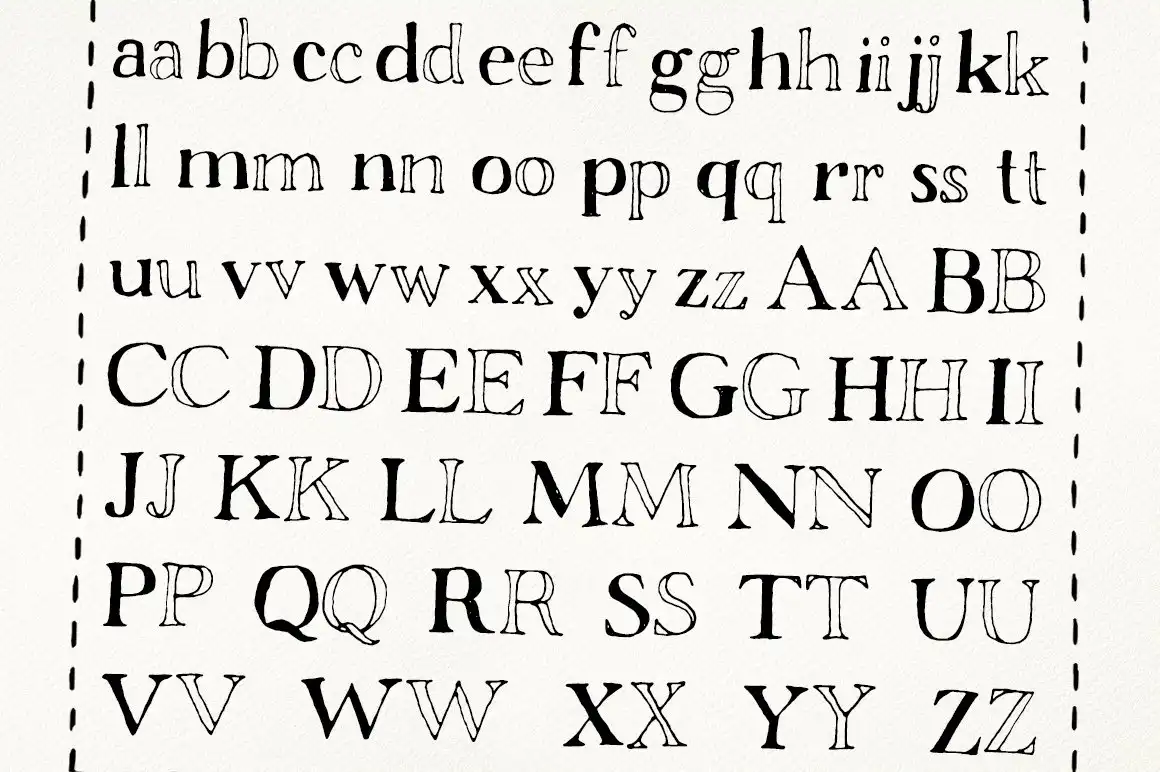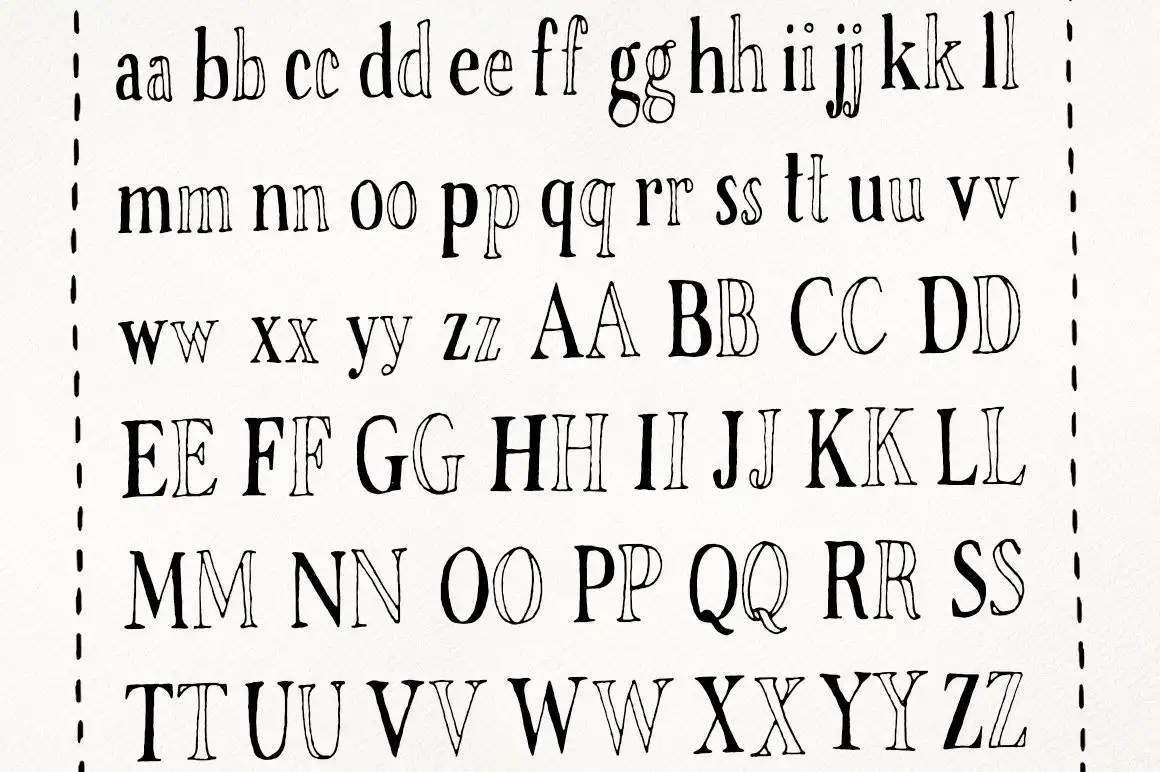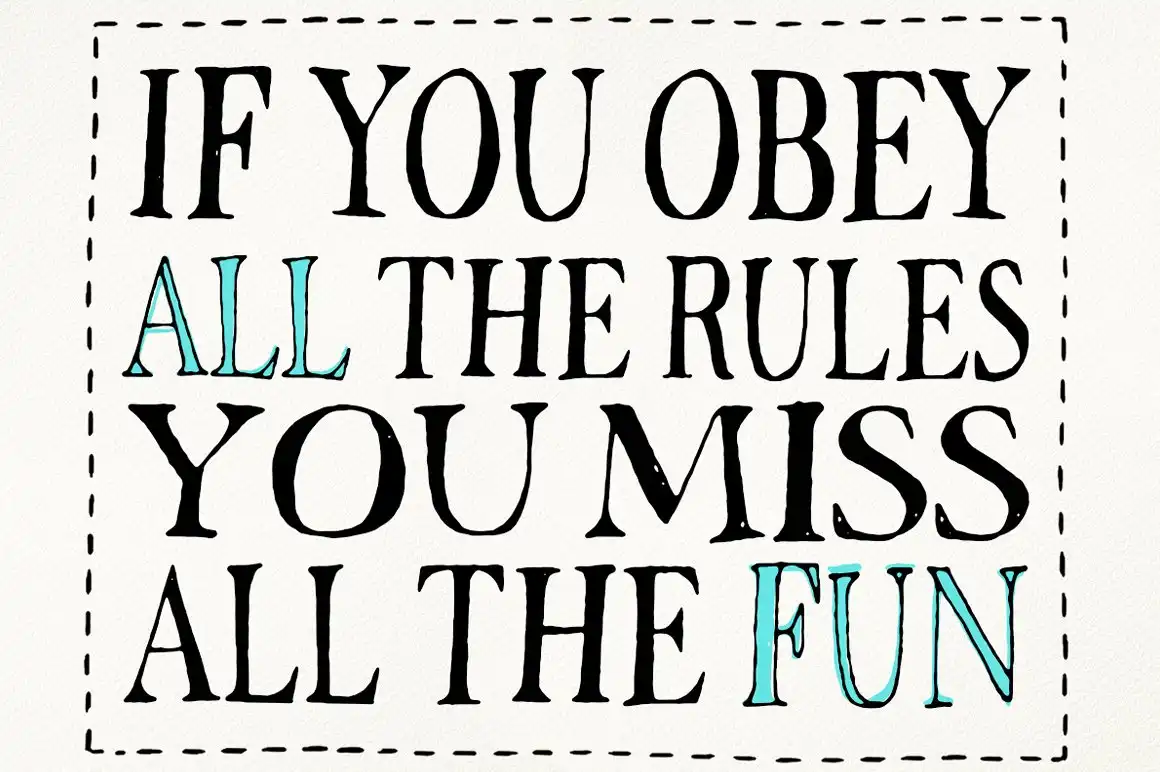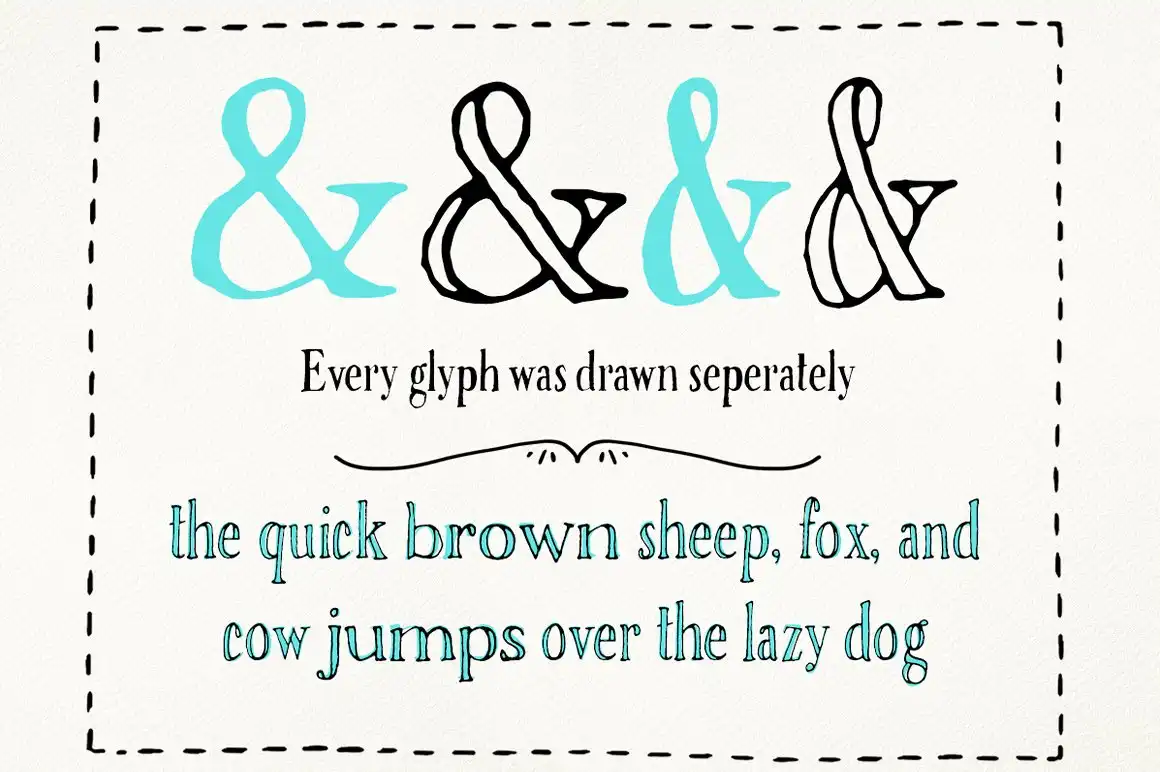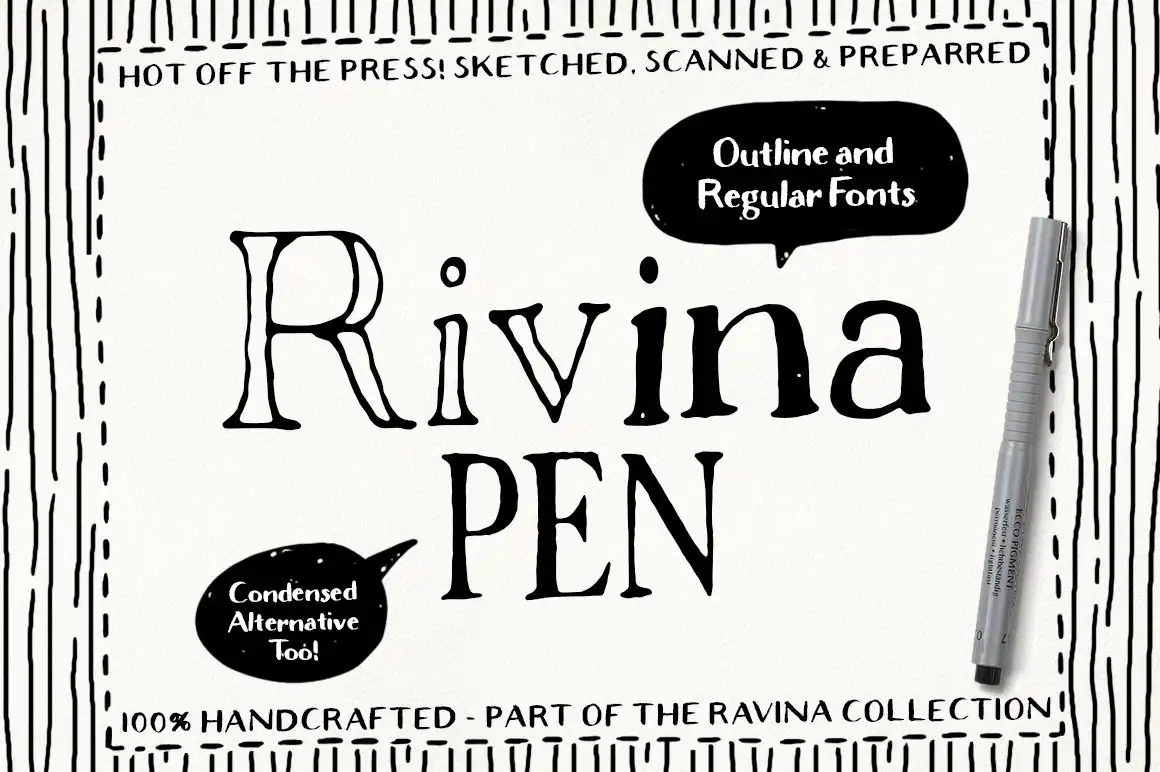
Welcome to the Rivina Pen Font Family!
The Rivina Pen Font Family is a playful collection of hand-drawn serifs that embodies the spirit of the DIY movement. In a world filled with digital uniformity, these fonts stand out with their unique charm and character. Whether you’re designing invitations, branding materials, or social media graphics, this font family will bring your creative visions to life! 🎨
- Hand-Drawn Style: Adds a personal touch to your designs, making them feel warm and inviting.
- Multiple Font Variations: Enjoy both outline and solid versions for versatile design options.
- Easy to Layer: While perfect alignment may vary, the creative possibilities are endless!
This font family is ideal for:
- Graphic designers looking for unique typefaces
- Wedding invitation creators
- Social media marketers wanting to stand out
- Anyone who loves hand-drawn aesthetics!